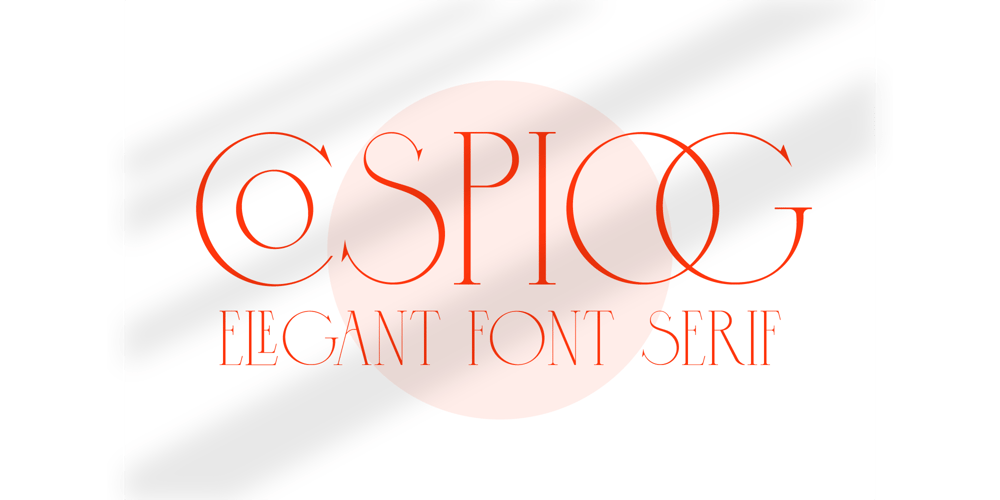
Cospiog Font Family was designed by ryan creative and published by ryan creative. Cospiog contains 2 styles and family package options. Creative greetings…Introducing Cospiog which has an elegant looking design. This font has additional ligatures to give it a varied appearance. You can use Cospiog in modern and contemporary designs, and is suitable for use in various fashion media, posters, modeling magazines, typography, promotions and other digital media.FEATURES; Uppercase. Foreign Support, Numbers and Punctuation. Ligatures. Regular & Italic. Works on PC and Mobile. Simple installation. Accessible in Adobe Illustrator, Adobe Photoshop. Adobe InDesign, even works in Microsoft Word. Fully accessible without additional design software. Cospiog is encoded with Unicode PUA, which allows full access to all additional characters without having to design any special software. Mac users can use the Font book, and Windows users can use the Character map to view and copy any additional characters to paste into your favorite text editor/app. Thank you for visiting, have a nice day 😉